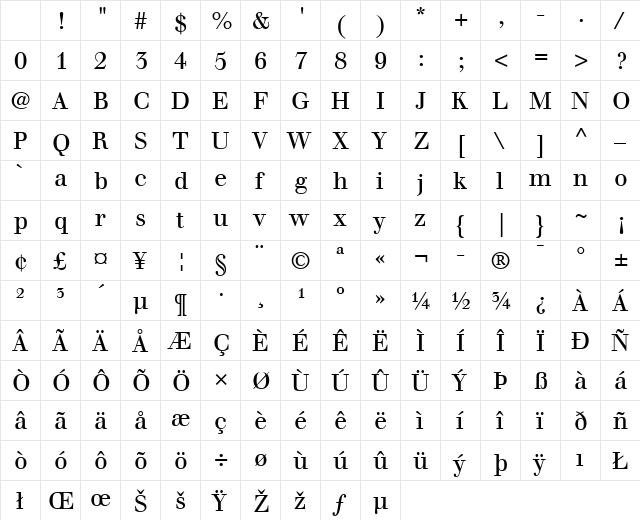
Walbaum LT Roman is a composed and adaptable typeface that performs quietly and consistently across a wide range of design contexts. Its slender proportions lend an understated elegance to any composition.